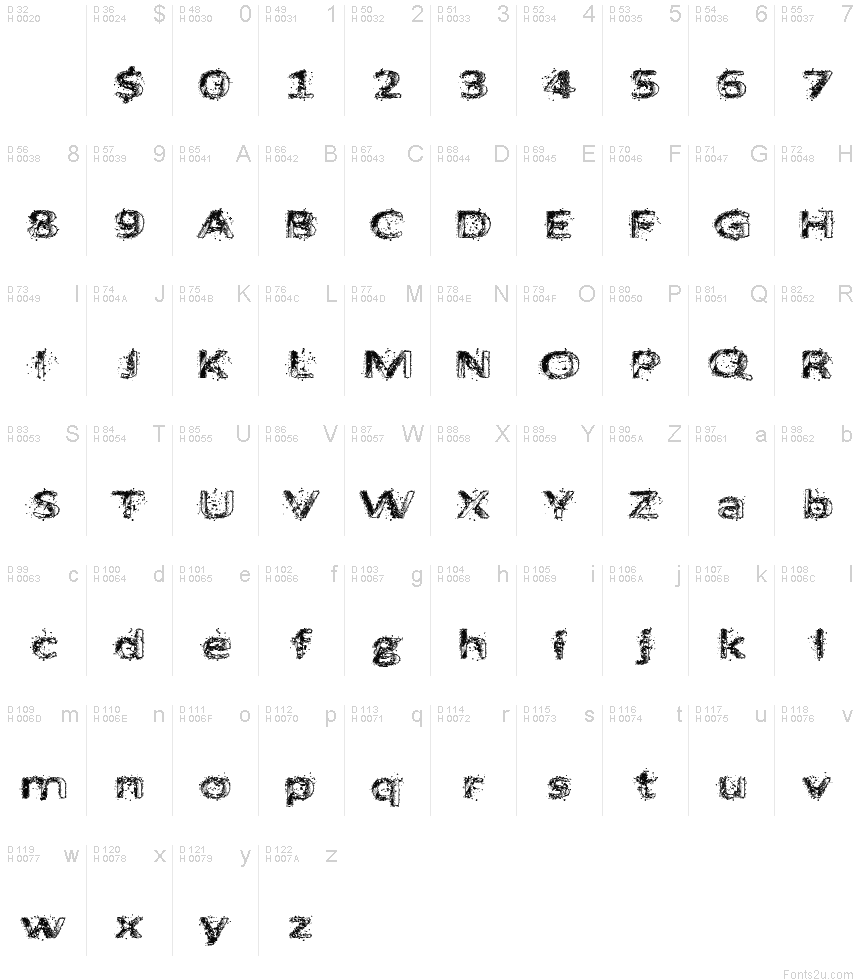
Art Bang by Xerographer Fonts is a free distorted display font whose broad, irregular letters are covered in frantic ink spatters, wiry scratches, and loose doubled contours that slip in and out of alignment. Dense blotches gather around the edges, and the broken inner lines make each form look repeatedly stamped, badly overprinted, and dragged across an old, worn press bed.
Those sprayed marks can merge directly into distressed photography, torn-paper collage, or photocopied textures, making the lettering useful for music posters, streetwear graphics, and record packaging rooted in underground culture. Editorial covers can turn its damaged print texture into punk-era atmosphere.